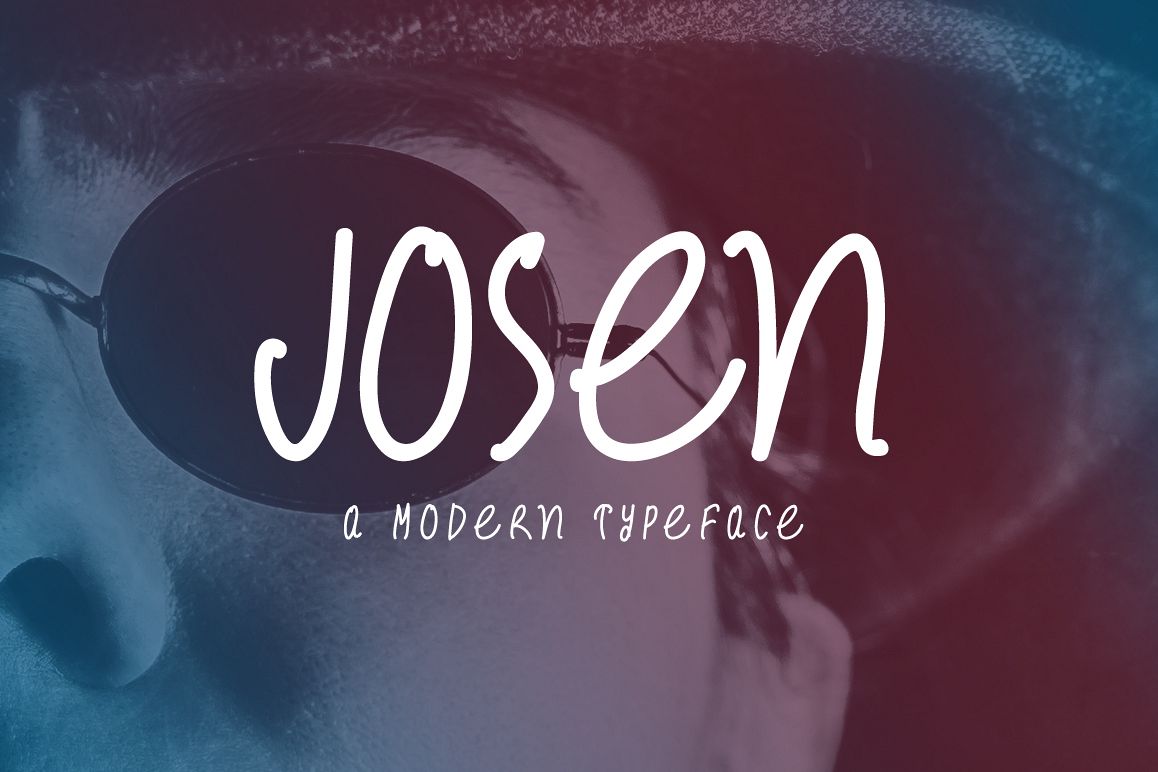
Introducing Josen!
Josen is a fresh & modern font. Josen is perfectly suited to stationery, logos, t-shirt, paper, print design, website header, photo frame, flyer, music cover, poster, image slider and much more.